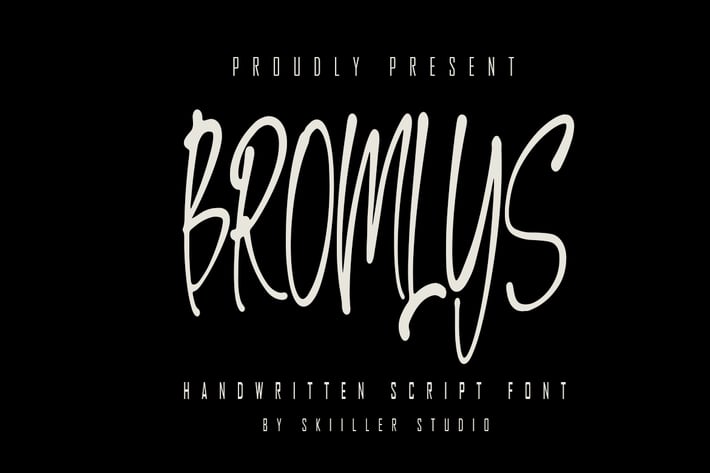
Bromlys - Handwritten Script font
Bromlys is a handwritten signature script with a natural flow and beautiful style. Kathilass is perfect for design projects, prewedding, branding.